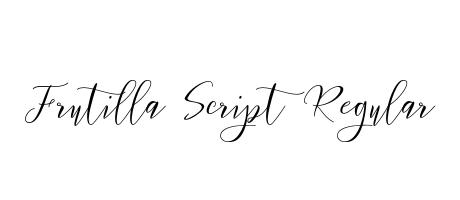
Frutilla Script
Frutilla Script Regular is a flowing, elegant script font. Its letters are interconnected with graceful curves and delicate flourishes, giving it a romantic and slightly whimsical feel. The x-height is moderate, creating a balanced look. It’s perfect for wedding invitations, feminine branding, or any project needing a touch of sophisticated charm.